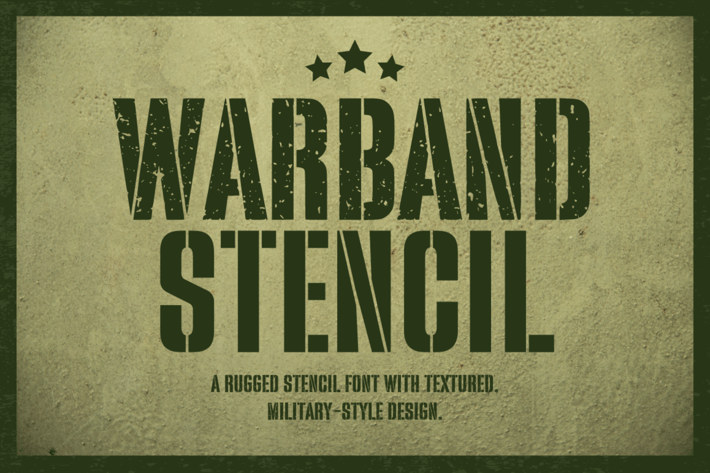
Warband Stencil Font
Warband is a bold stencil and textured font, designed to evoke a rugged, military-inspired aesthetic. Perfect for impactful headlines, posters, and army-themed designs, Warband delivers a strong, gritty feel for projects that need a commanding presence.
- Clean & Textured Style
- Numeral & Punctuation